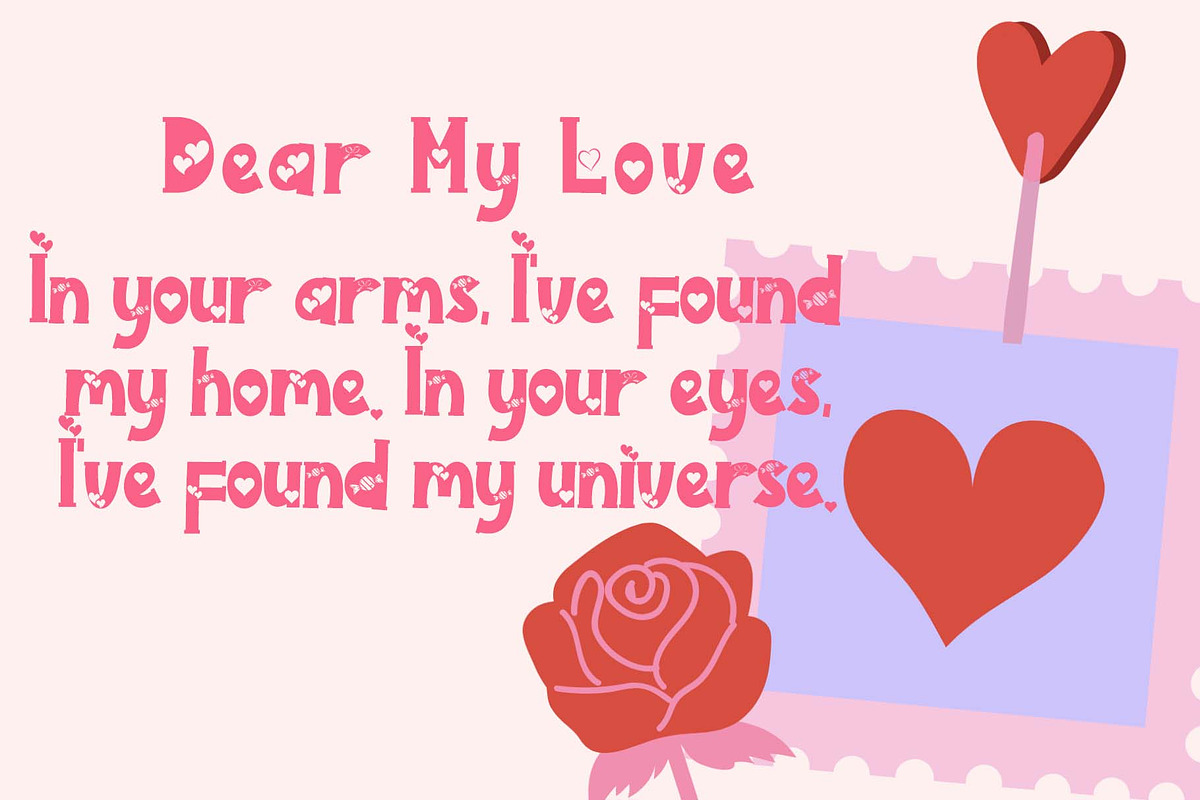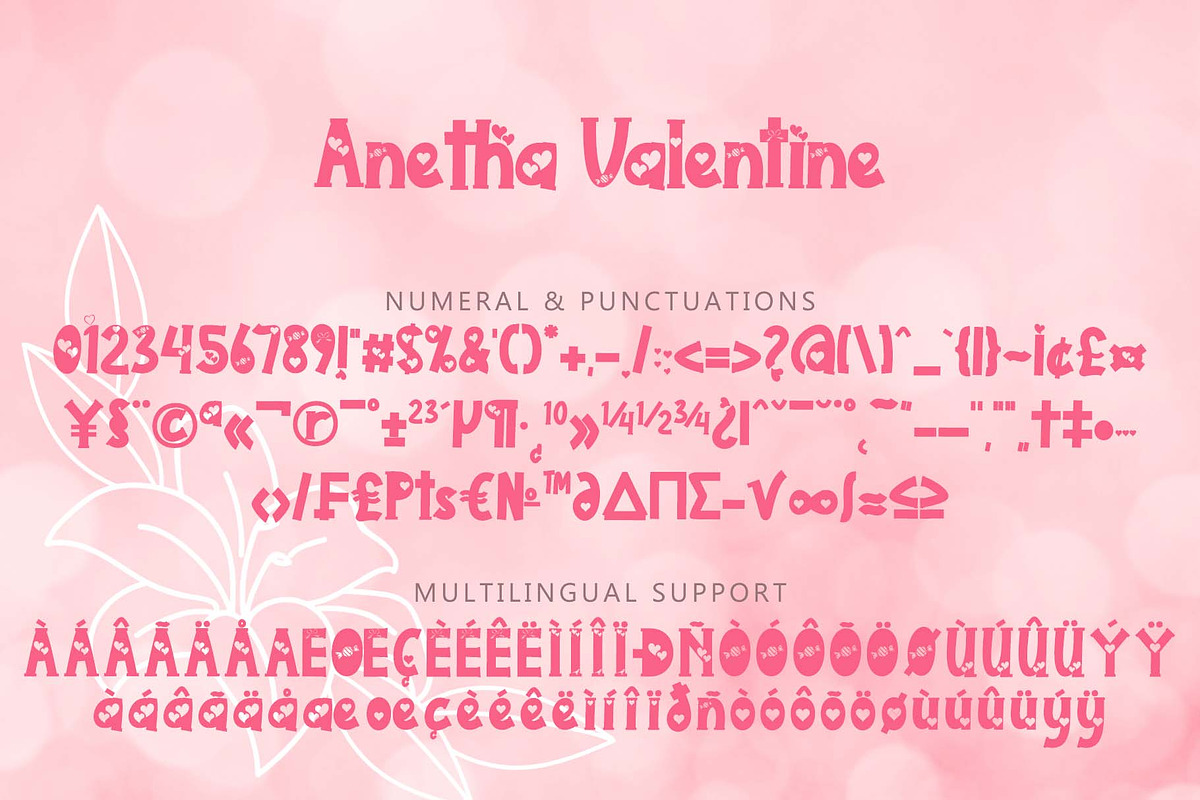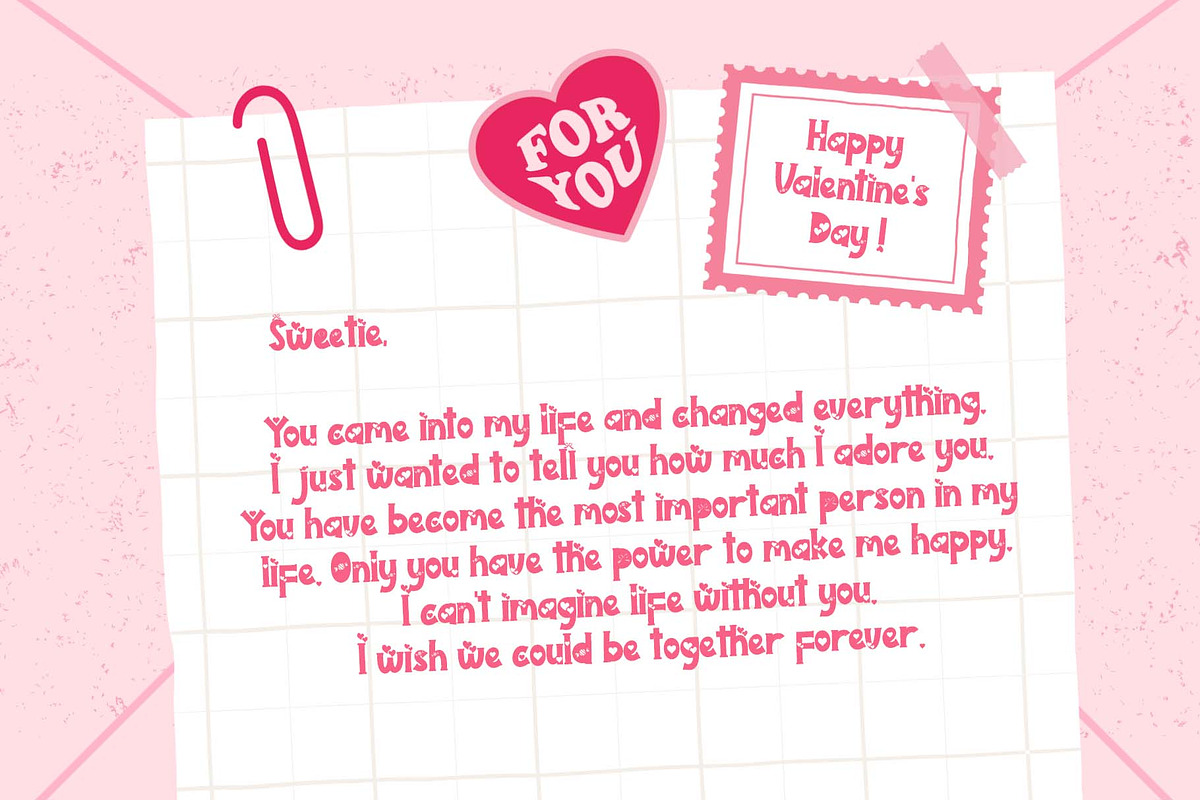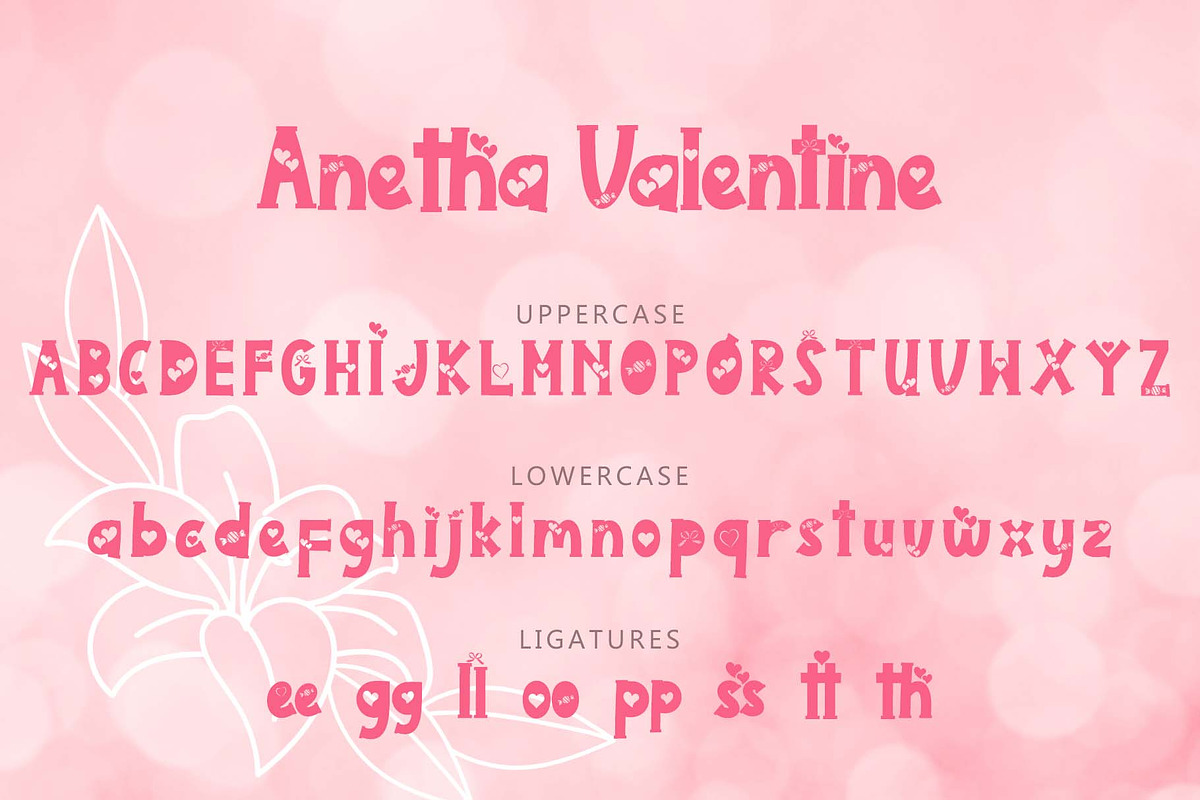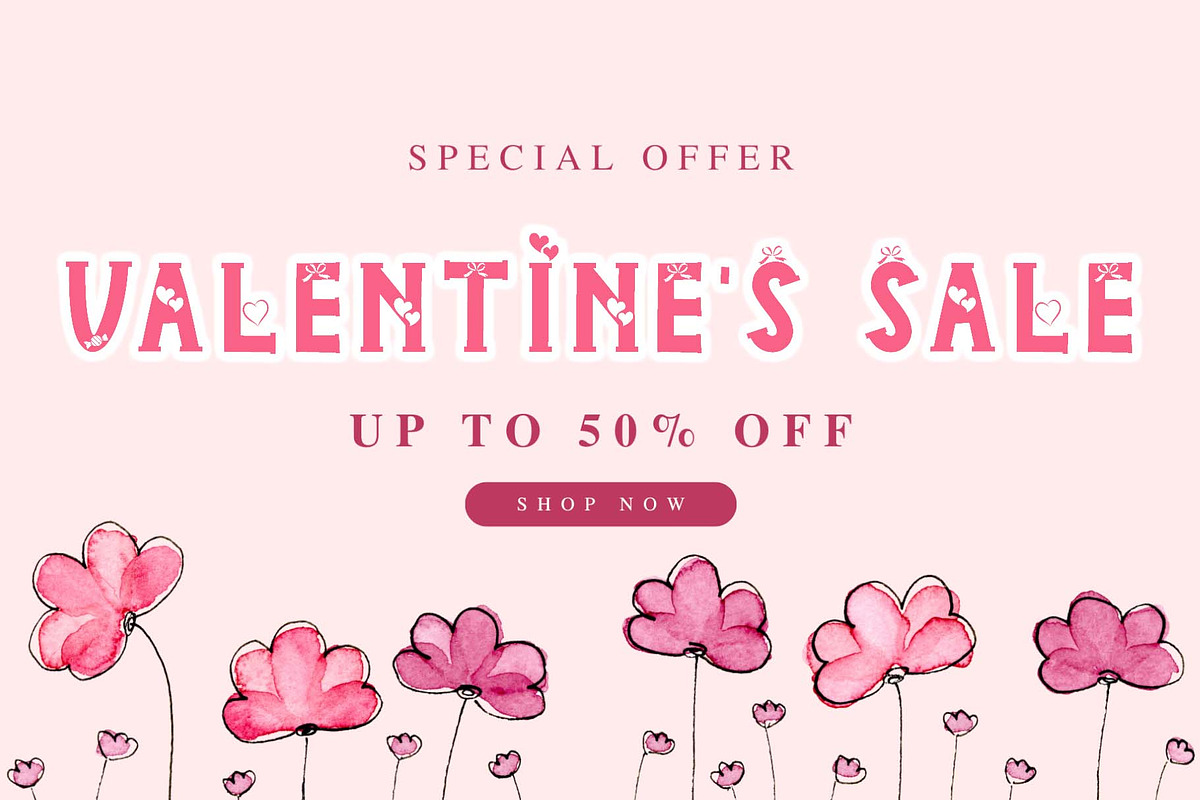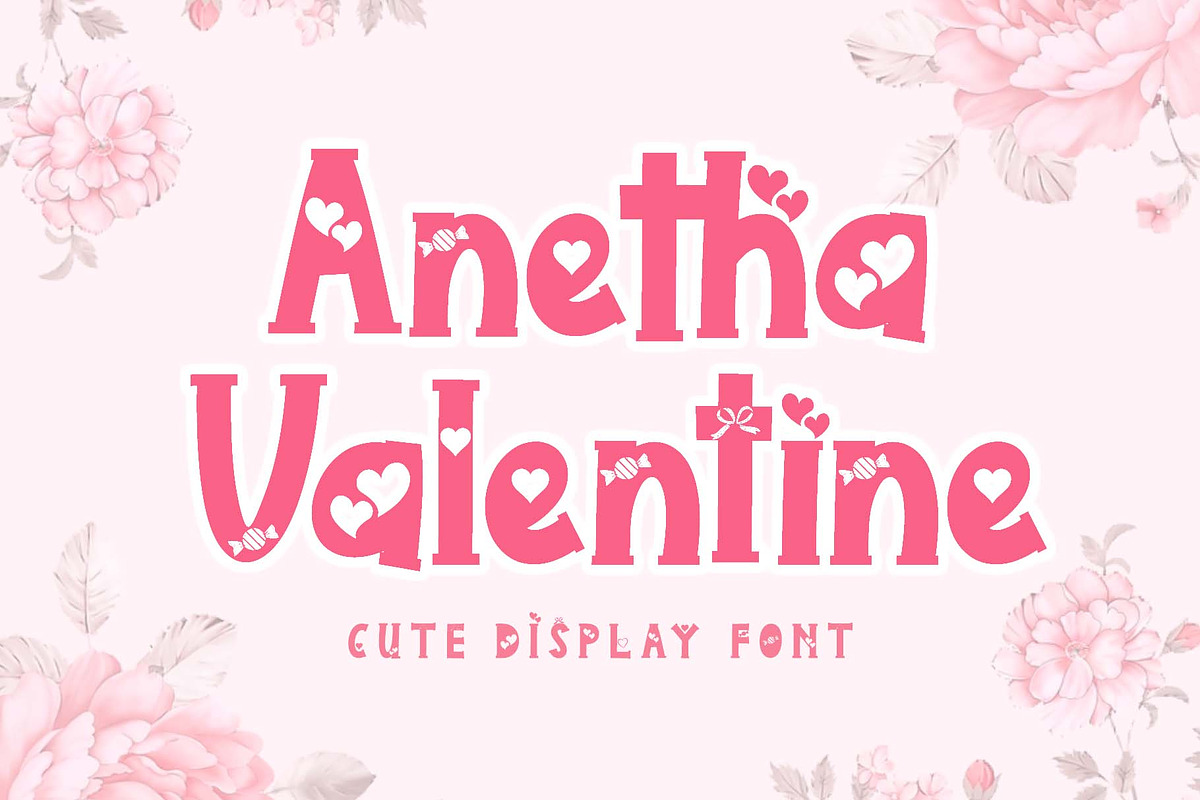
Anetha Valentine
"Anetha Valentine" is a cute and sweet display font. It is decorated with cute hearts, ribbons, and candies. It comes with capital letters, lowercase letters, ligatures, numbers, punctuation, and multilingual support. It is perfect for use on Valentine's Day, Thanksgiving, Christmas, weddings, birthdays, invitations, and more.